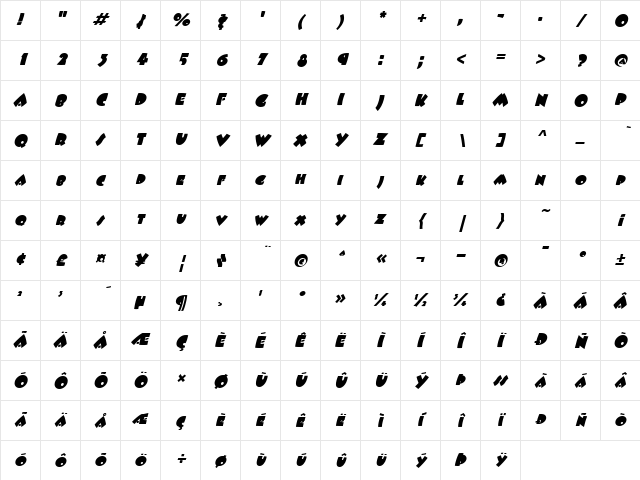
Fatso Italic
Fatso Family
Fatso Italic
Design Context for Fatso
Fatso is a composed and adaptable typeface that performs quietly and consistently across a wide range of design contexts. The slanted form adds forward momentum and visual energy.
Pro Tip: Use Fatso for emphasis, pull quotes, and subheadings where its slanted energy can add rhythm to the layout.